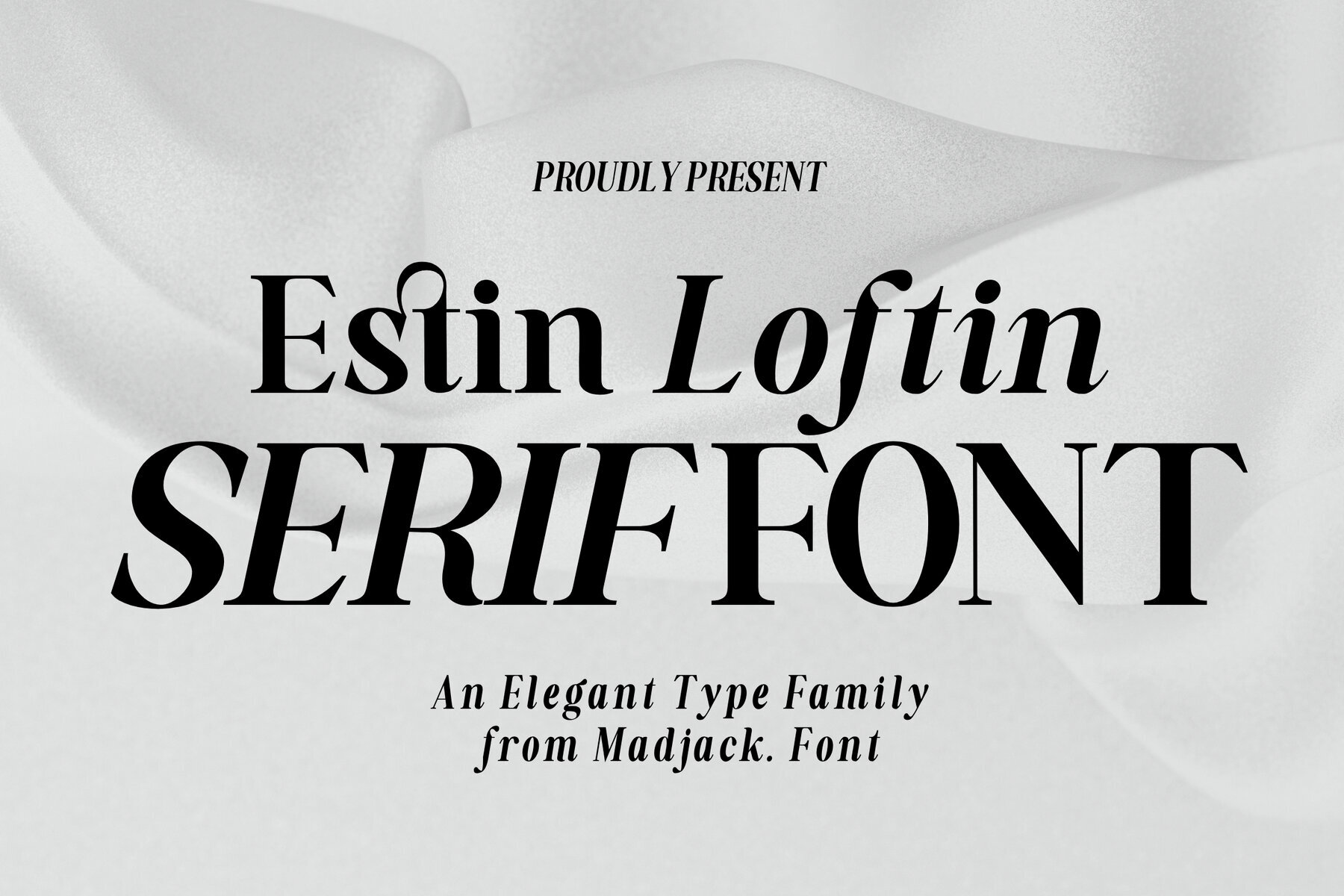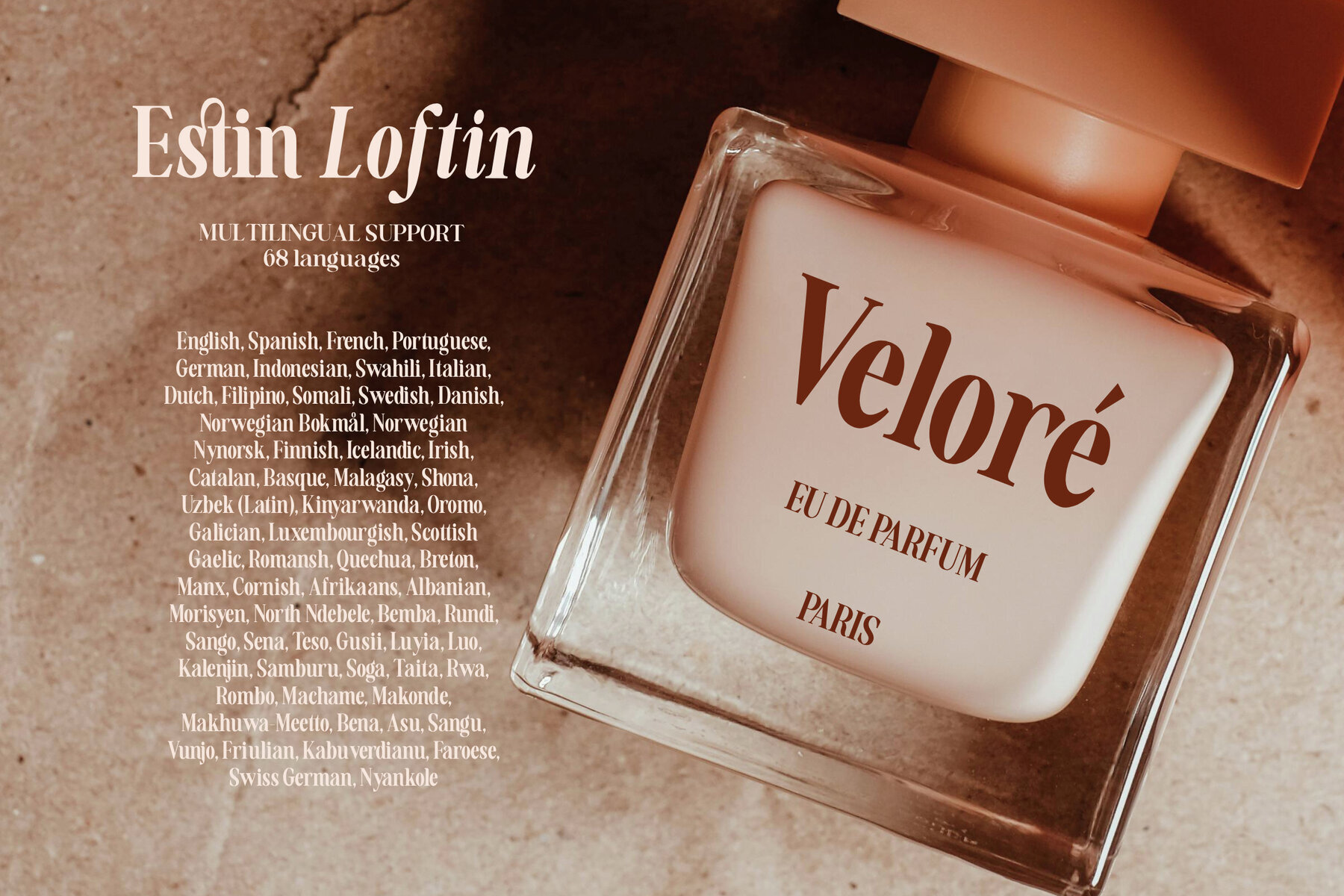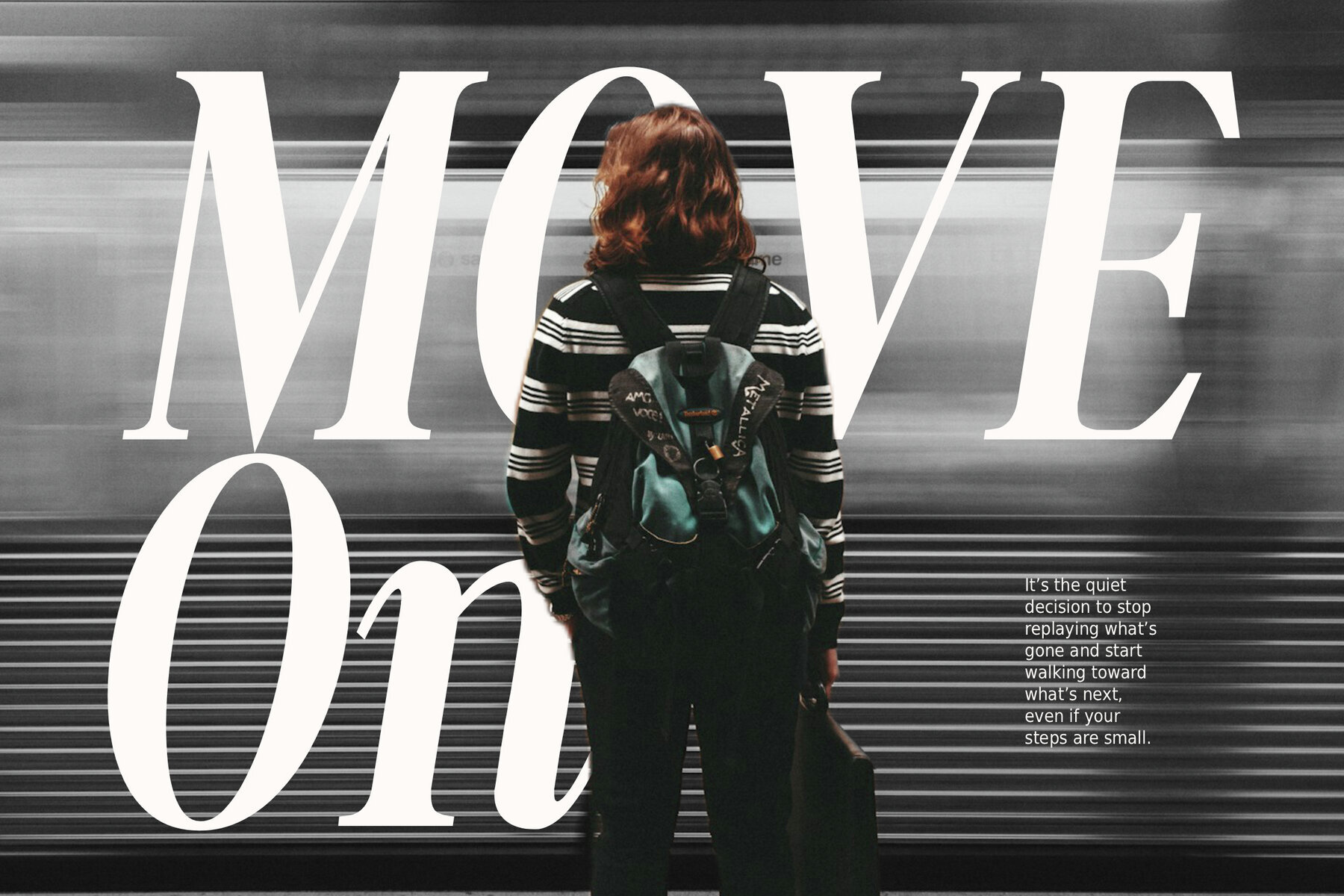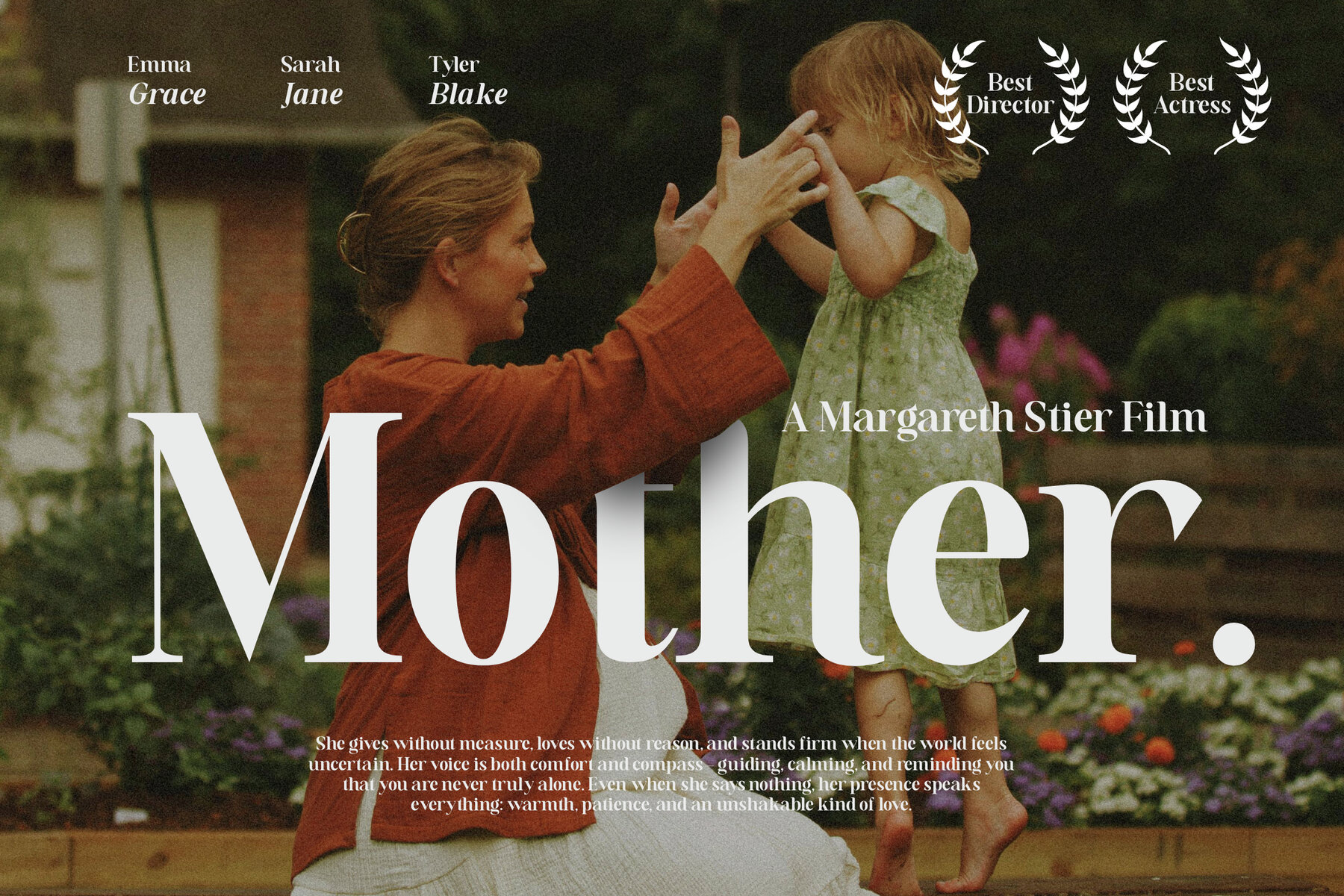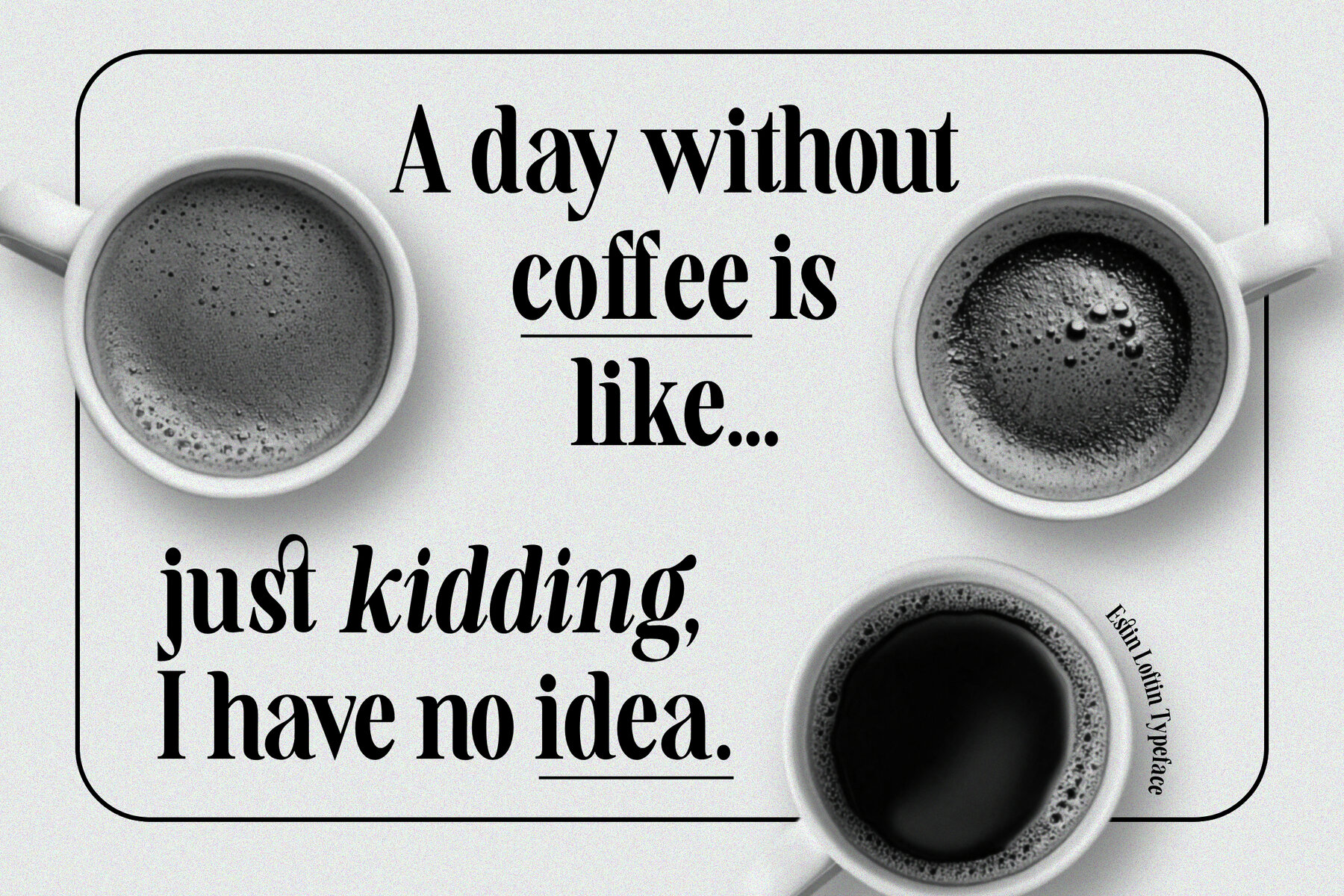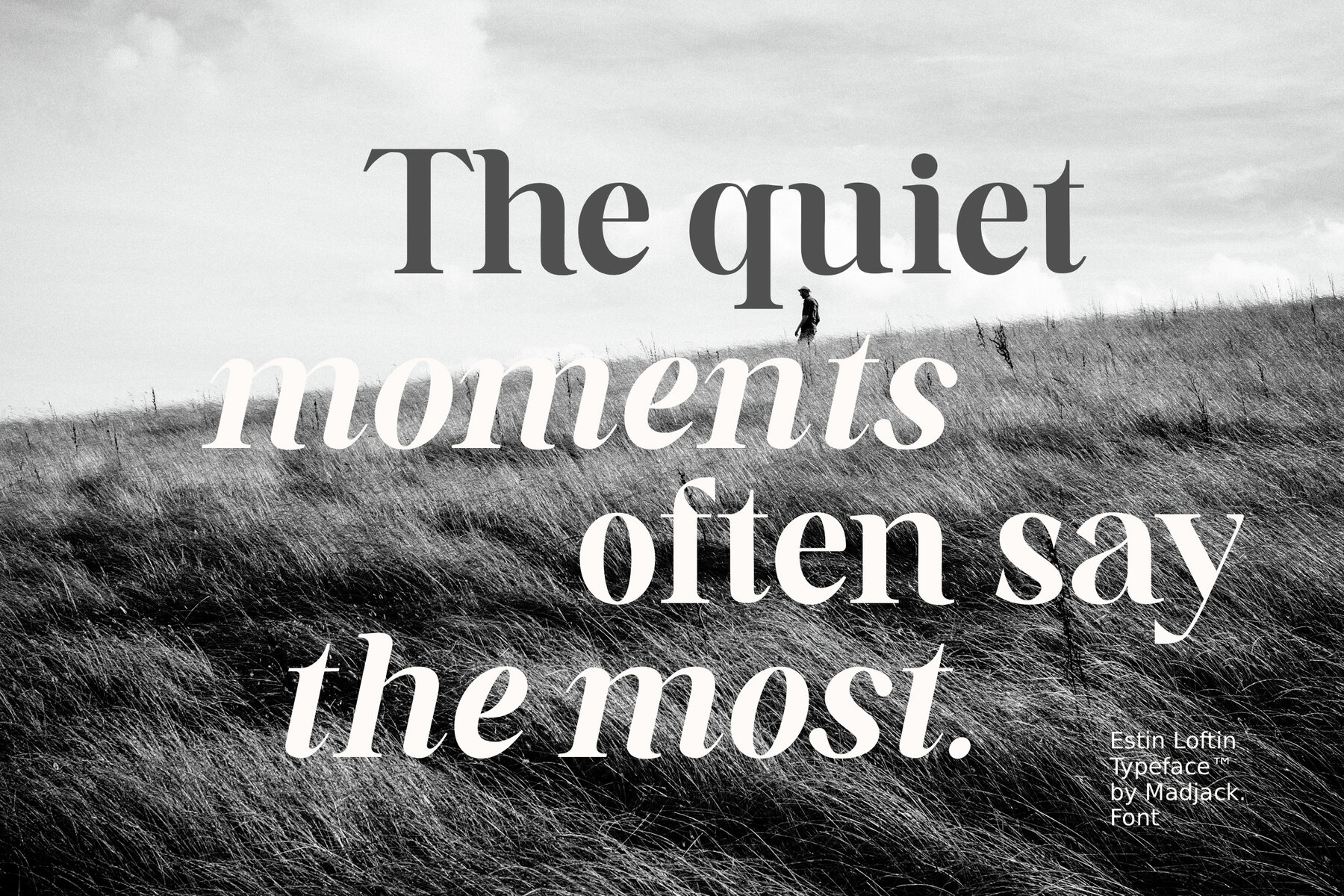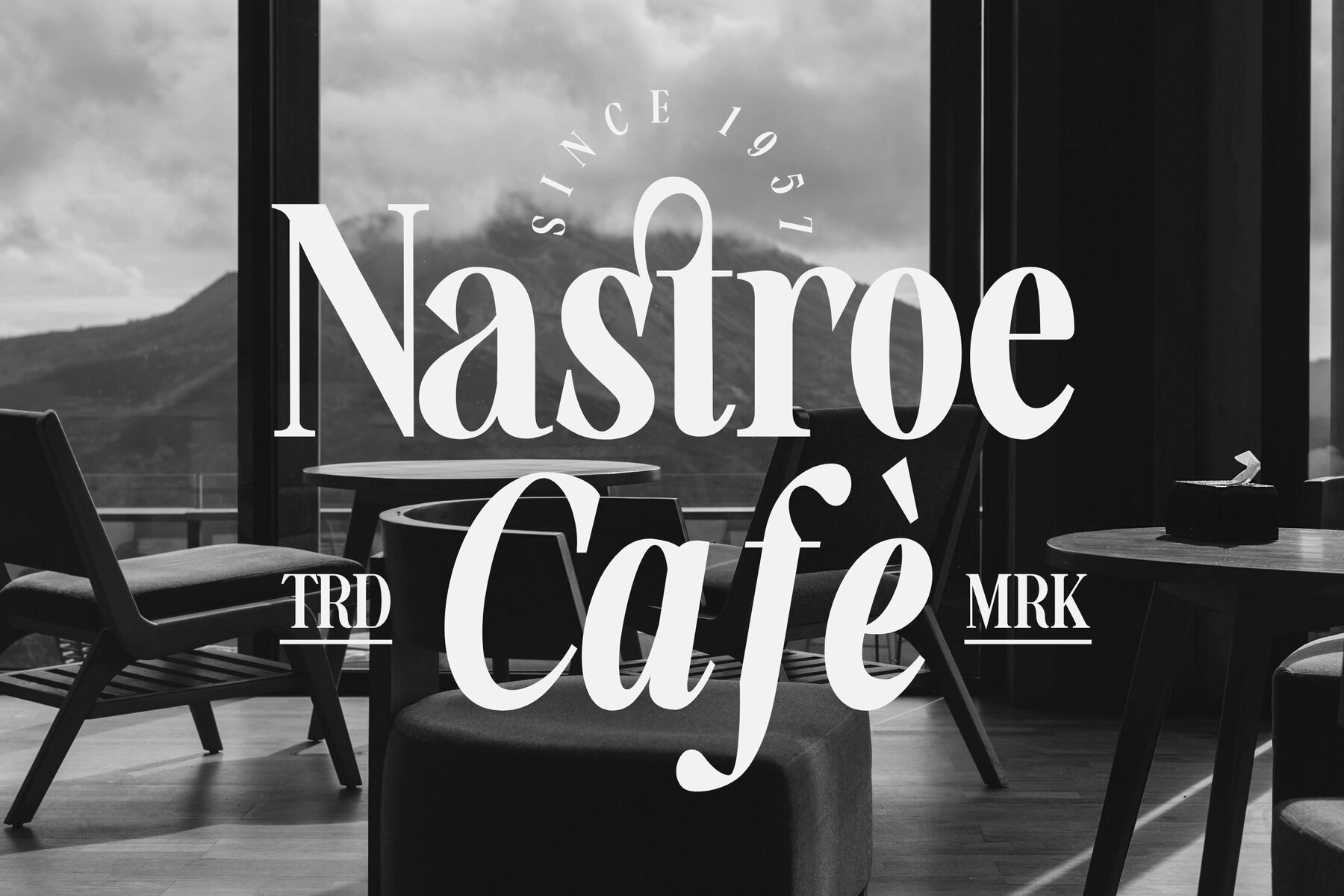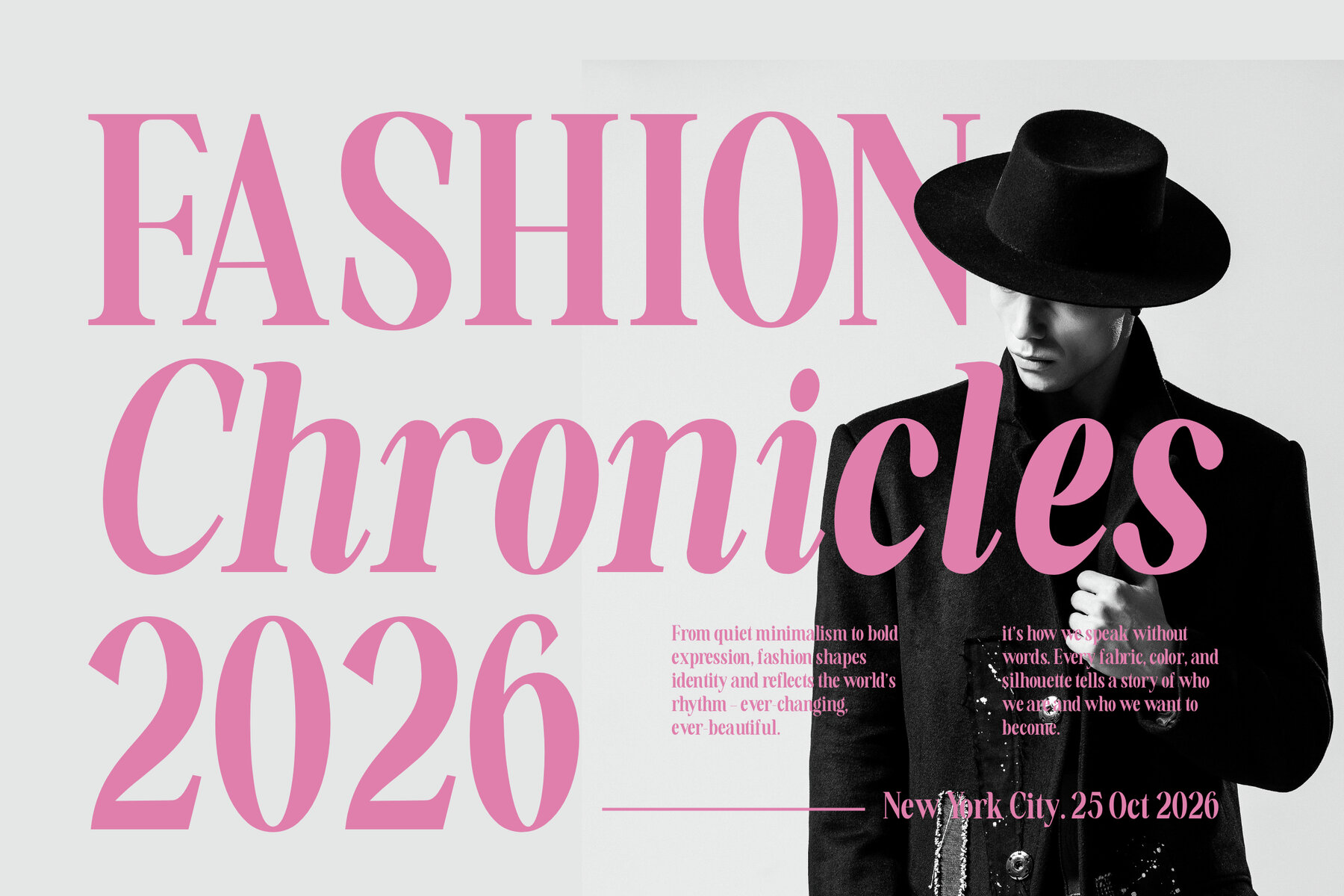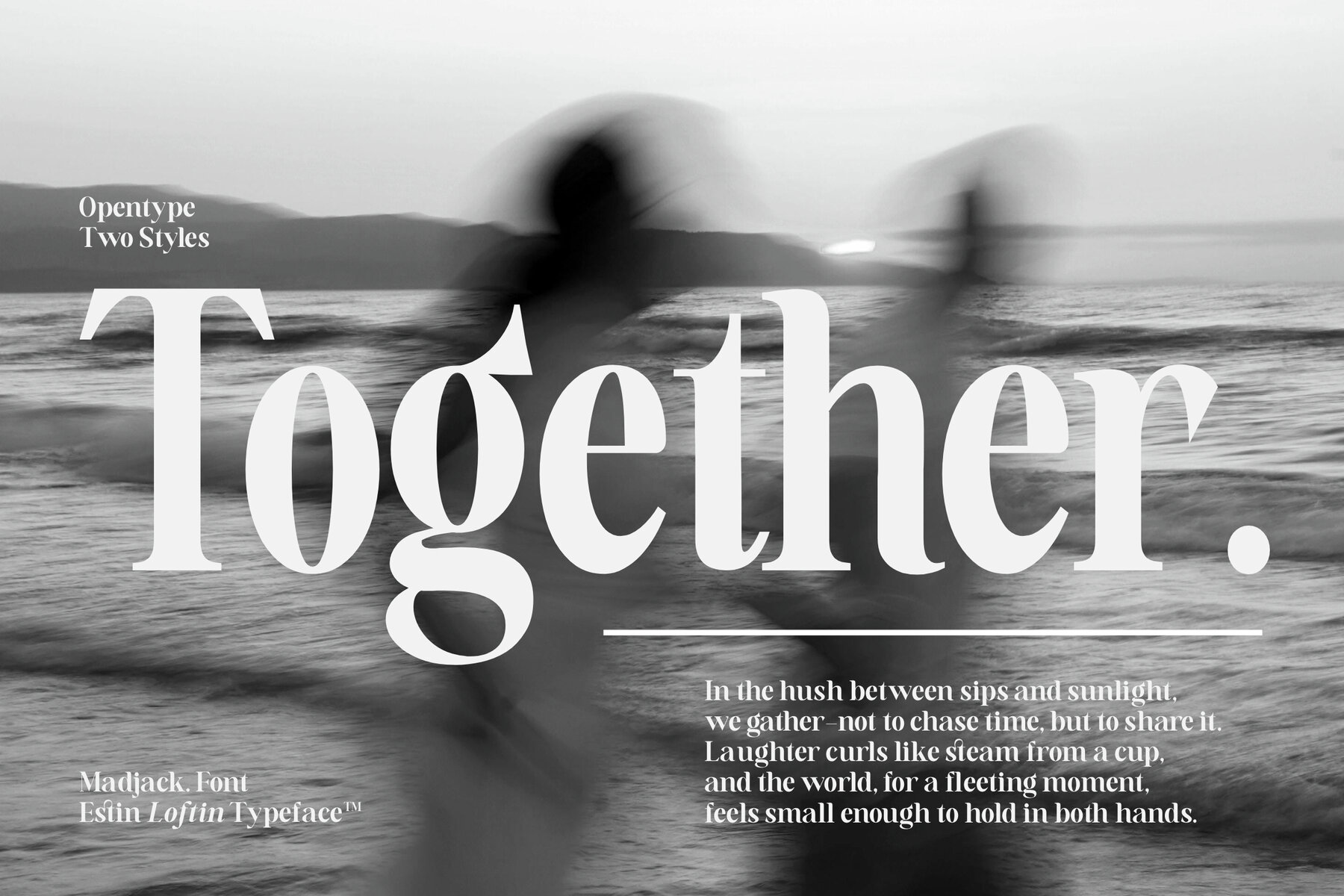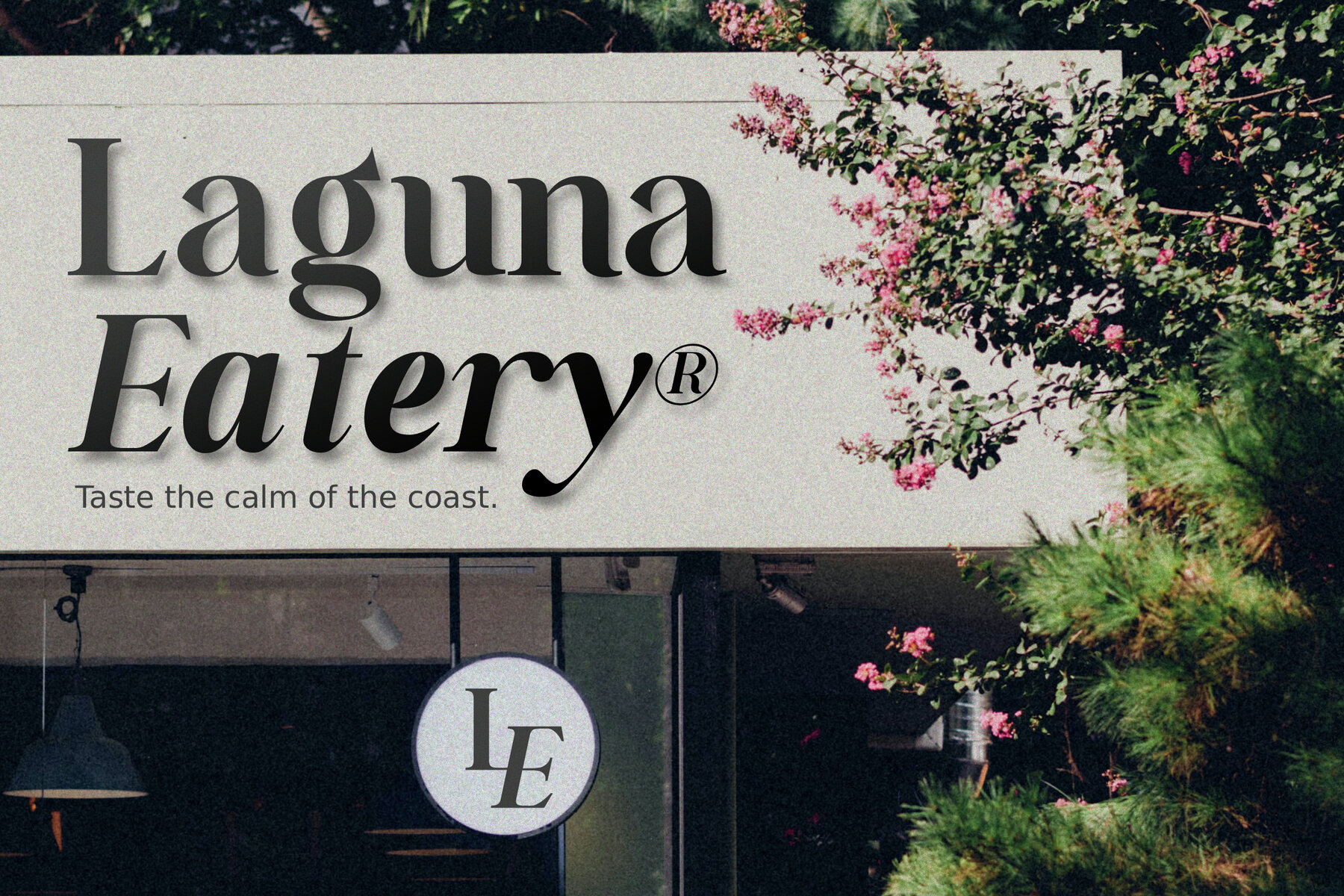
Estin Loftin Font
Estin Loftin is a refined serif typeface seamlessly combining classic elegance with a contemporary flair. Crafted with high-contrast strokes and intricate details, this typeface stands as a testament to timeless design. Ideal for diverse applications, its versatility makes it a staple in any designer's toolkit. Best Suited For: Luxury brands, logos, fashion magazines, wedding invitations, and high-end product packaging.Estin Loftin: Sophisticated Serif Typeface